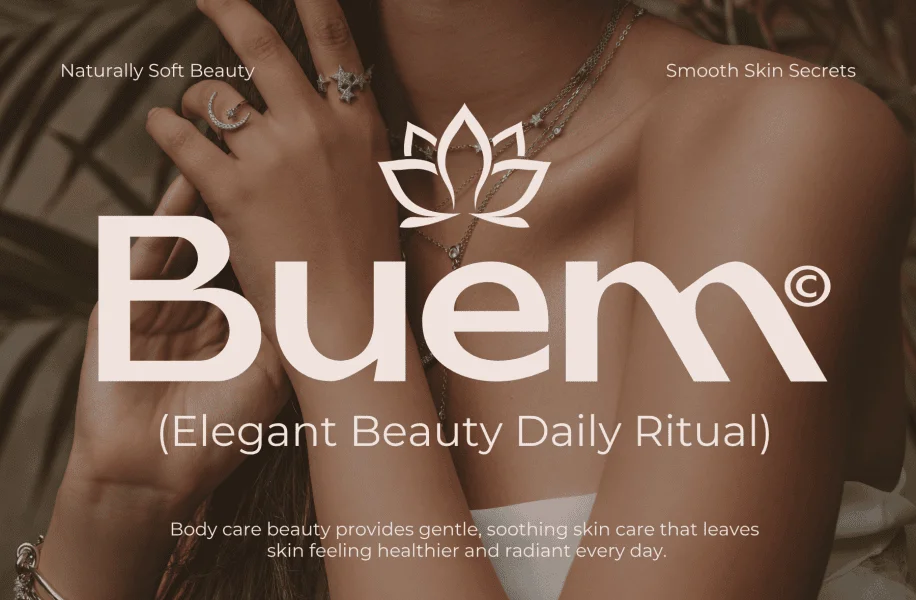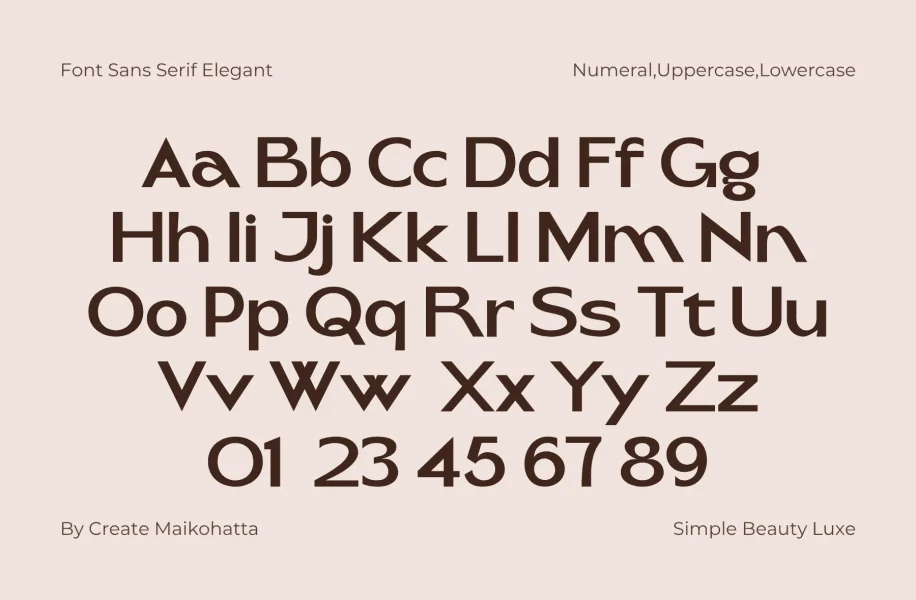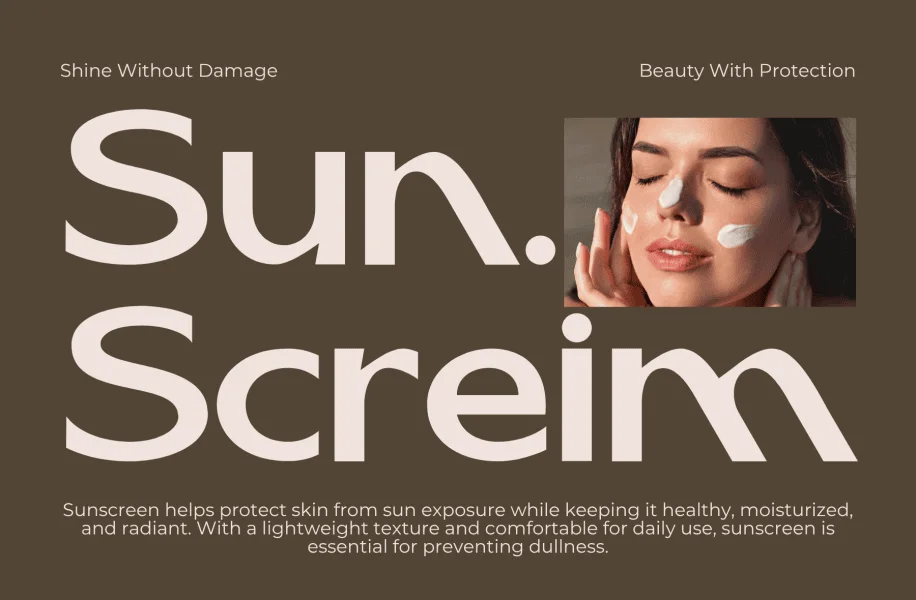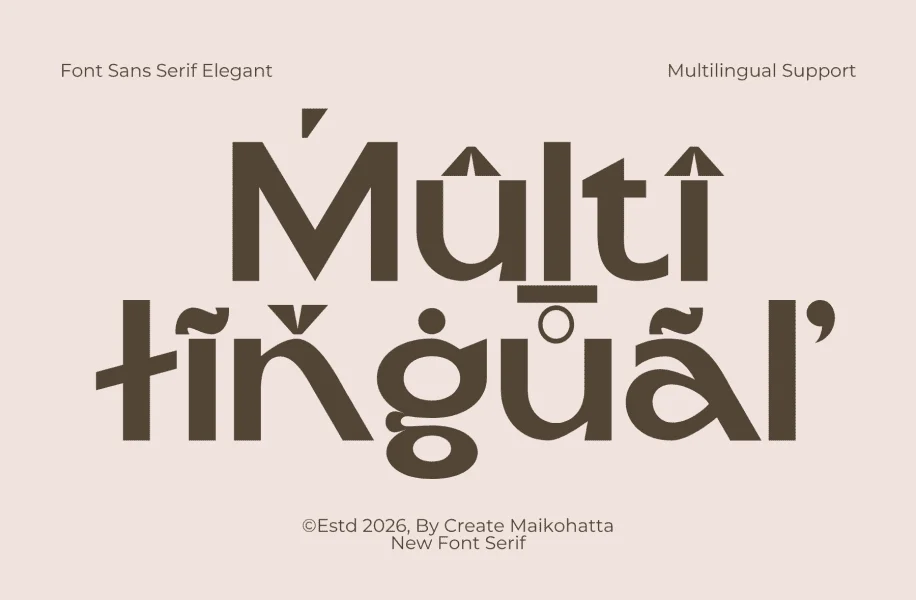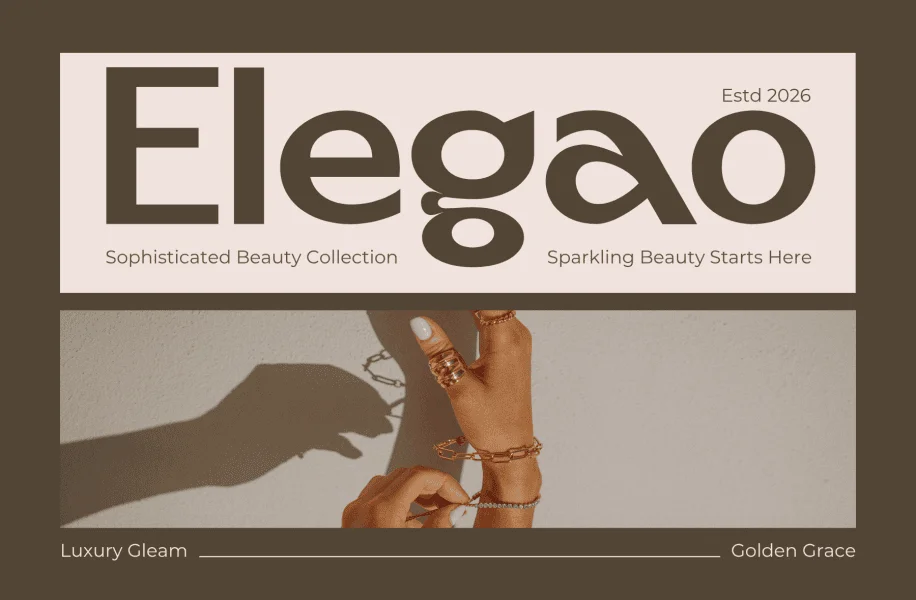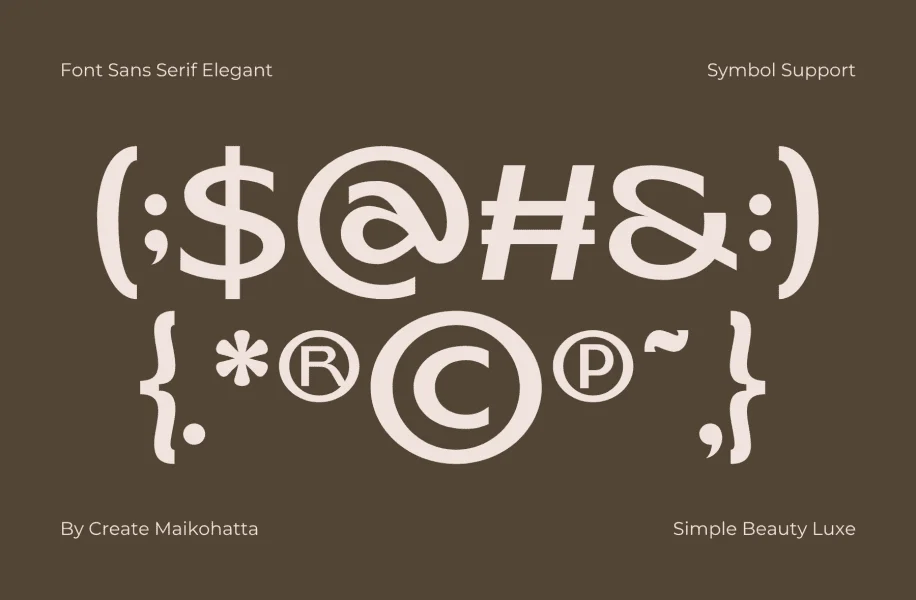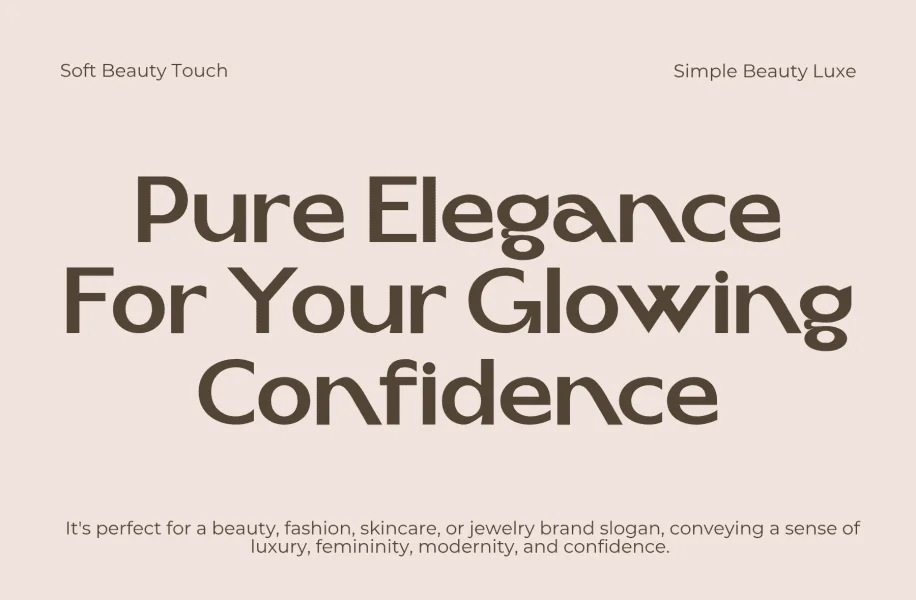
Introducing our new product Begav – Elegant Beauty Sans Serif
Begav is a modern elegant sans serif font designed with a soft beauty touch and luxurious minimalist style. Featuring smooth curves, bold geometric shapes, and stylish contemporary details, this font delivers a clean yet sophisticated appearance perfect for branding projects.
Inspired by beauty, fashion, skincare, and editorial aesthetics, Begav combines modern simplicity with elegant visual balance, making it ideal for logos, cosmetic packaging, magazine headlines, social media templates, and luxury advertising.
Its unique character shapes create a fashionable and feminine impression while maintaining strong readability. Whether used for large display titles or refined branding elements, Begav brings a classy, modern, and exclusive feel to every design.